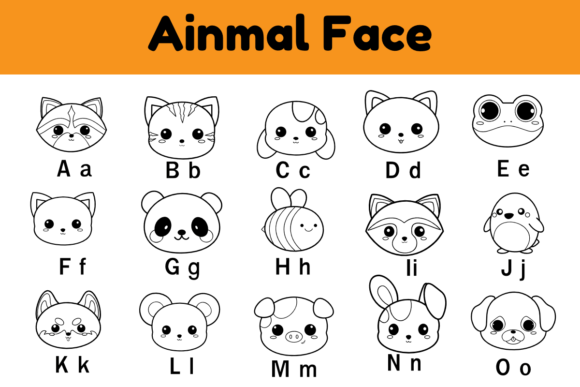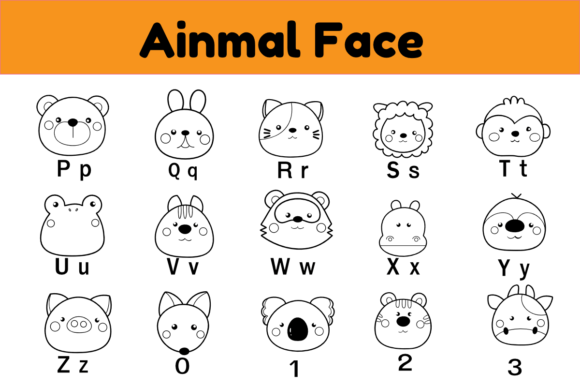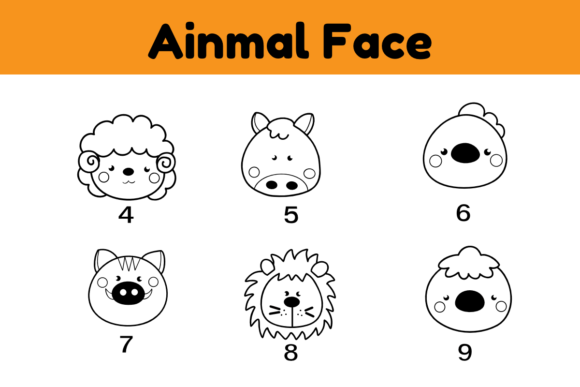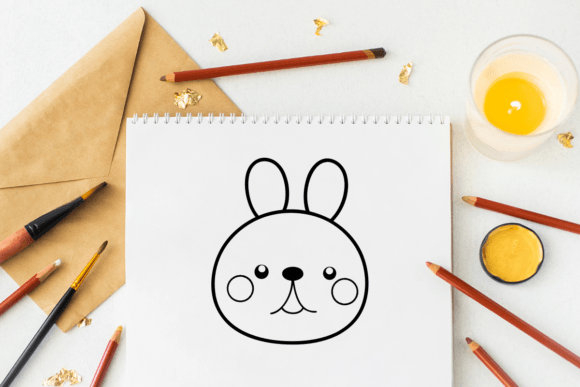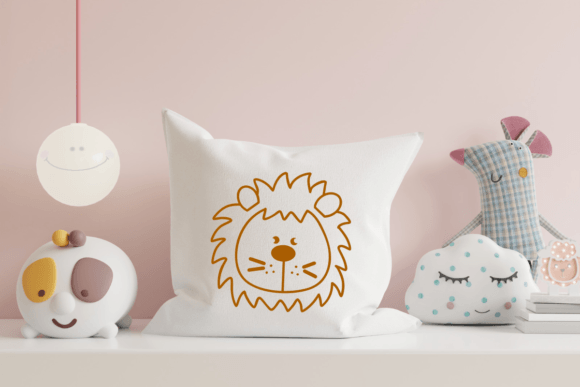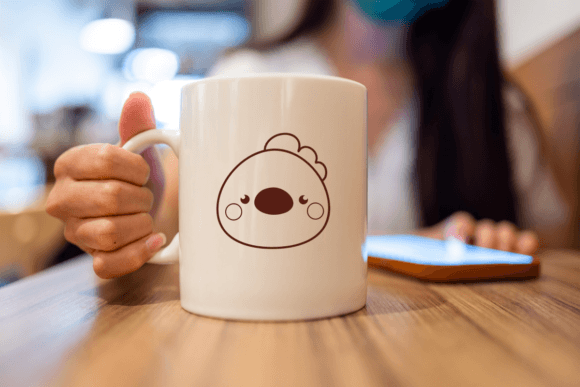
Introducing Animal Face Font: Add a Playful Touch to Your Designs
Are you looking for a fun and creative way to add some personality to your designs? Look no further than the Animal Face Font, a delightful dingbat font featuring adorable animal faces. This charming font is perfect for designers, crafters, and anyone looking to add a playful touch to their projects.
What is Animal Face Font?
Animal Face is a unique font that replaces each letter and number with a cute drawing of an animal. This fun font is designed to bring a smile to your face and make your text stand out. Whether you’re working on a kids’ project, creating invitations, or designing greeting cards, Animal Face Font is the perfect choice.
Features of Animal Face Font
- Adorable Animal Faces: Each letter and number in the font is replaced with a cute drawing of an animal, making your text playful and charming.
- Fun and Playful: Perfect for kids’ projects, invitations, and creative designs that require a touch of whimsy.
Uses of Animal Face Font
Animal Face Font is a versatile font that can be used in a variety of projects, including:
- Kids’ Projects: Add a playful touch to kids’ party invitations, flyers, and activity sheets.
- Invitations: Create adorable invitations for baby showers, birthday parties, and other celebrations.
- Greeting Cards: Design fun and playful greeting cards for birthdays, holidays, and special occasions.
- Signs and Banners: Add a touch of whimsy to signs and banners for events, parties, and businesses.
Tips for Using Animal Face Font
Here are some tips for getting the most out of Animal Face Font:
- Mix and Match: Combine Animal Face Font with other fonts to create a unique and playful look.
- Keep it Simple: Don’t overdo it – keep your design simple and clean to let the animal faces shine.
Animal Face Font is a fun and creative way to add some personality to your designs. With its adorable animal faces and playful charm, this font is perfect for designers, crafters, and anyone looking to add a touch of whimsy to their projects. So why not give it a try and see how you can use Animal Face Font to bring a smile to your audience’s face?